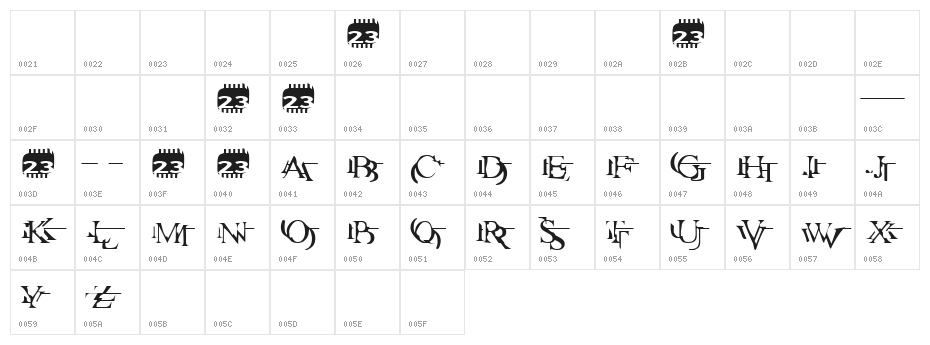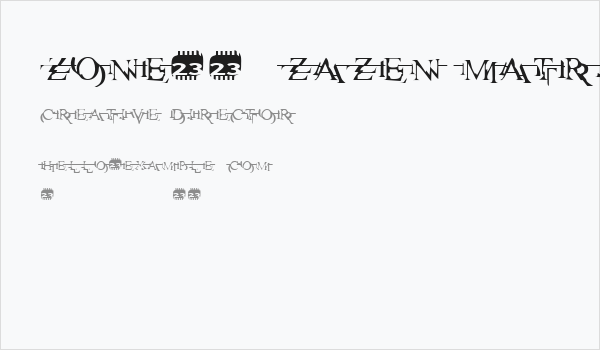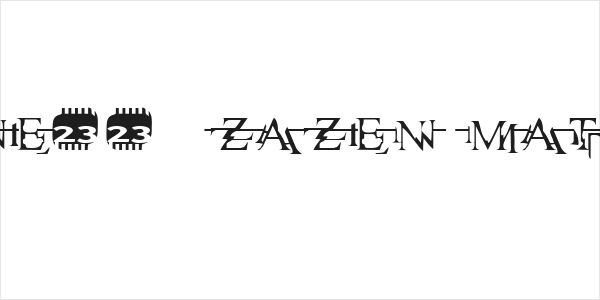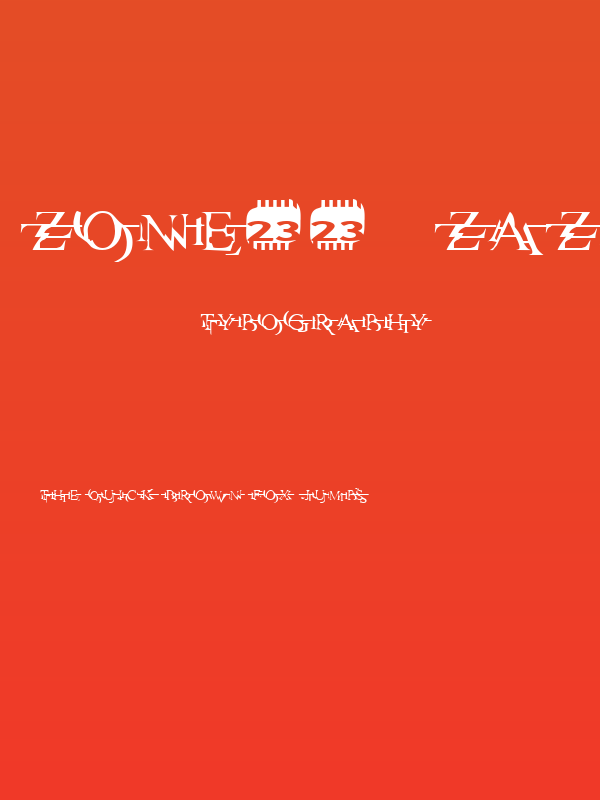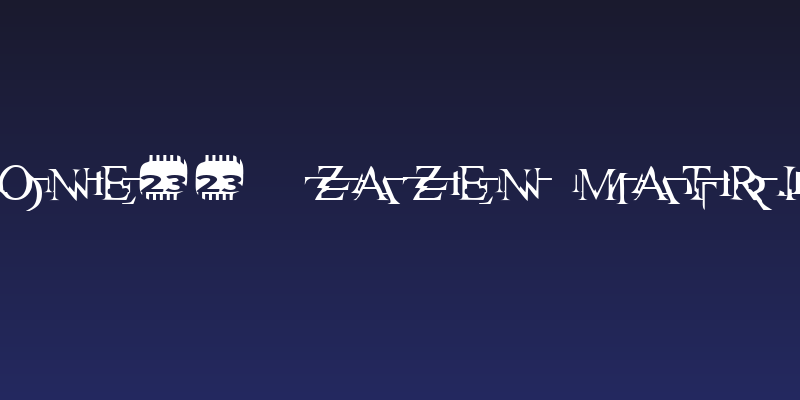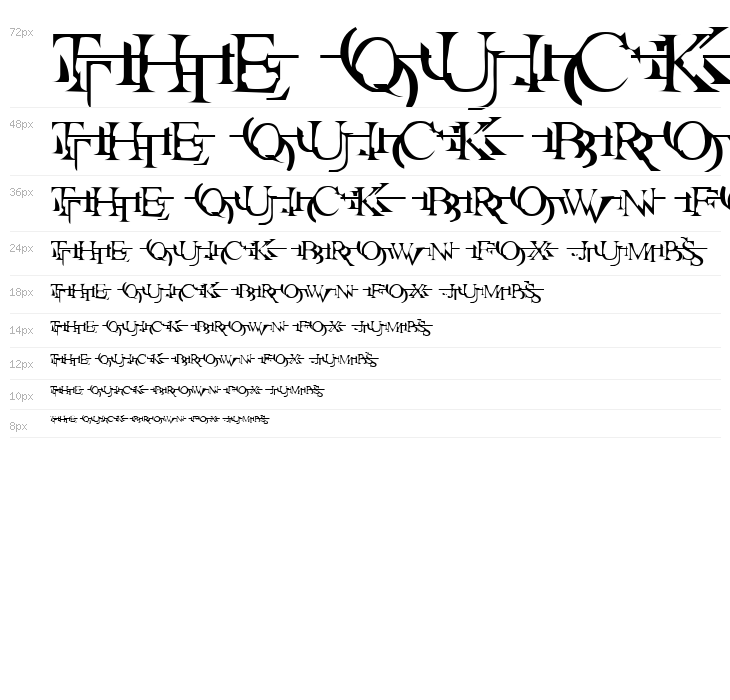
Zone23_zazen matrix Font
Zone23_zazen matrix Description
This font is a highly decorative and intricate typeface that combines elements of modern and futuristic design. Each character is uniquely styled with sharp angles and geometric shapes, creating a sense of movement and complexity. The uppercase letters are particularly striking, with bold lines and unexpected curves that give them a dynamic appearance. The lowercase letters maintain the same level of detail, ensuring consistency throughout the typeface. The numbers are equally stylized, featuring distinct and bold designs that make them stand out. This font is perfect for projects that require a strong visual impact and a touch of avant-garde flair.
| Overall Style | Futuristic, Decorative |
| Proposed Projects | Ideal for sci-fi themed posters, video game titles, and modern branding projects. |